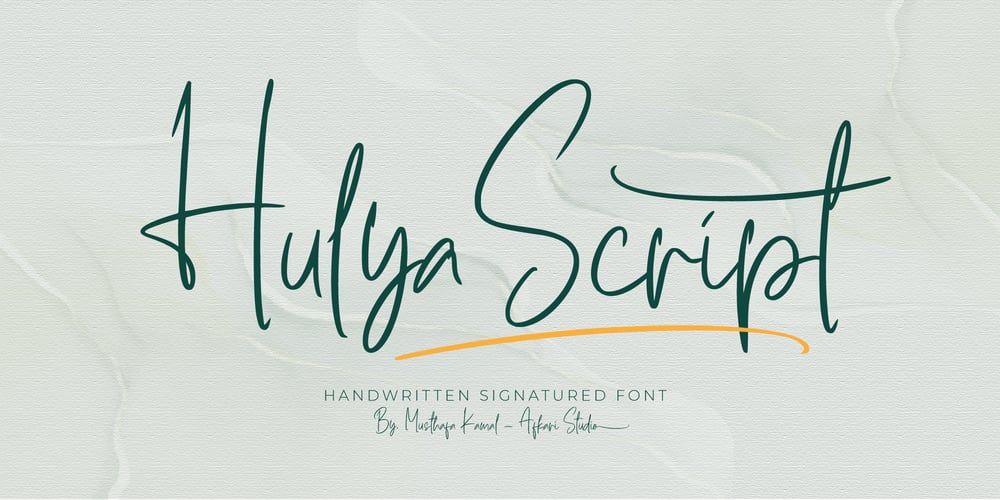
Hulya Script Font Family was designed by Musthafa Kamal Emje and published by Afkari Studio. Hulya Script contains 1 styles and family package options. Hulya Script Handwritten Signature Font is a Signature Handwriting Font script that is made with natural line handwriting. This font is suitable for any branding of your design needs, wedding invitations, romantic projects, studio brands, logos, invitations, social media posts, clothing, invitations, posters, cafe/resto signs, and others.Features; Uppercase, Lowercase, Number, and Punctuation Standart and Special Ligatures Works on PC & Mac Simple installations Accessible in Adobe Illustrator, Adobe Photoshop, Adobe InDesign, even work on Microsoft Word Fully accessible without additional design software. Mültîlíñgúãl Sùppört;